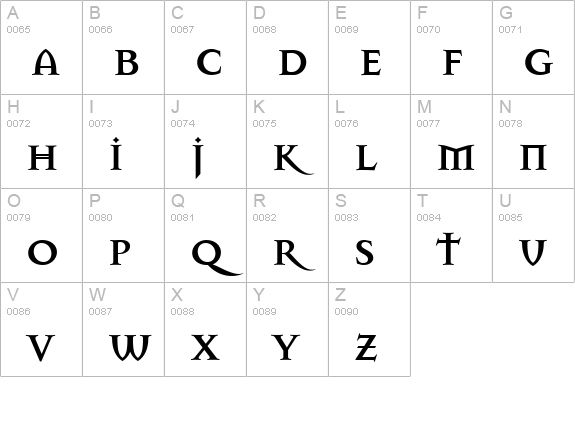
Mason-Bold Font Details
Mason-Bold is a strong, high-contrast variant in the Mason typeface family \xE2\x80\x94 well suited to headlines, attention-grabbing titles, and strong calls-to-action.
Introducing Mason-Bold, a stunning and versatile font that exudes strength and elegance. This unique typeface was carefully crafted to capture attention and make a bold statement, making it perfect for a wide range of design projects. From eye-catching headlines to impactful logos, Mason-Bold is the perfect choice for those looking to leave a lasting impression. Featuring clean lines and sharp edges, this font boasts a modern and sophisticated aesthetic that is sure to elevate any design. Its bold and sturdy letterforms add a sense of confidence and authority, making it an excellent choice for branding, advertising, and editorial designs. But what sets Mason-Bold apart is not just its striking appearance, but also its accessibility. This font is freely available to download at FontsMarket.com, allowing designers and creatives from all walks of life to have access to this powerful and versatile typeface. Whether you're a professional designer or just starting out, you can easily incorporate Mason-Bold into your projects, without any limitations or restrictions. With its wide range of characters and language support, Mason-Bold offers endless possibilities for expressing your creativity. From uppercase letters that demand attention to lowercase letters with a touch of elegance, this font truly has it all. Additionally, it includes numerals, punctuation marks, and special characters, ensuring that your designs are cohesive and visually appealing. Whether you're designing a magazine spread, a website, or a promotional poster, Mason-Bold has the versatility to adapt to any project. Its clean and legible design ensures readability across various mediums and sizes, while its bold and commanding presence adds a touch of sophistication and professionalism. In conclusion, Mason-Bold is not just a font; it's a powerful tool that empowers designers to create impactful and memorable designs. And the best part? It's freely available to download at FontsMarket.com, making it accessible to anyone with a passion for design. So why wait? Unleash your creativity and download Mason-Bold today to elevate your designs to new heights.